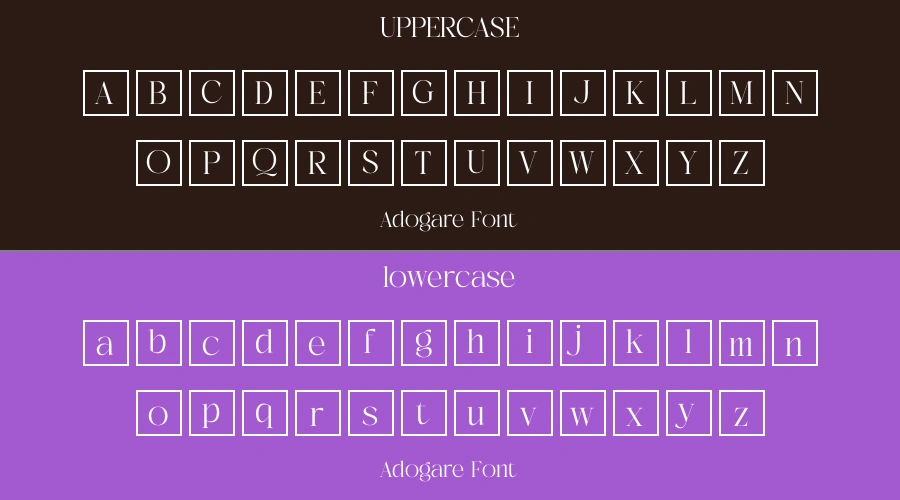
About Adogare Font
Adogare Font embodies typographic excellence through its masterful combination of ligatures and reading ease. Created for poster art, this typeface delivers exceptional professionalism and technical excellence across all applications. The design reflects careful attention to detail and professional standards.
Advanced capabilities include distinctive tapered strokes and versatile proportional figures, giving designers creative control. When used in promotional materials, Adogare Font exhibits remarkable hinting quality. The harmonious balance between joint detail and personality sets this typeface apart.